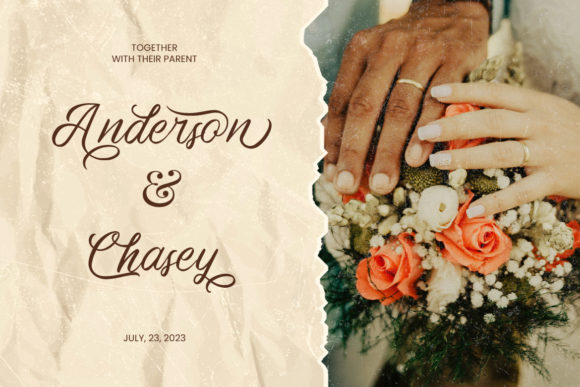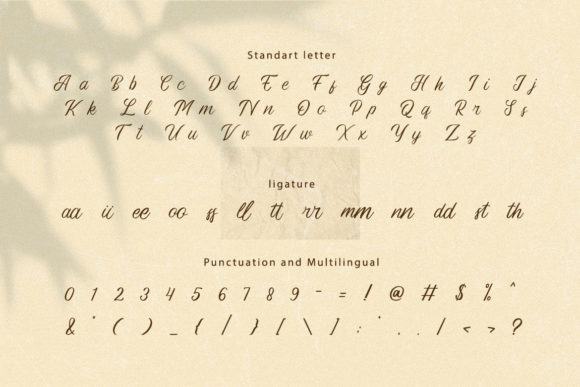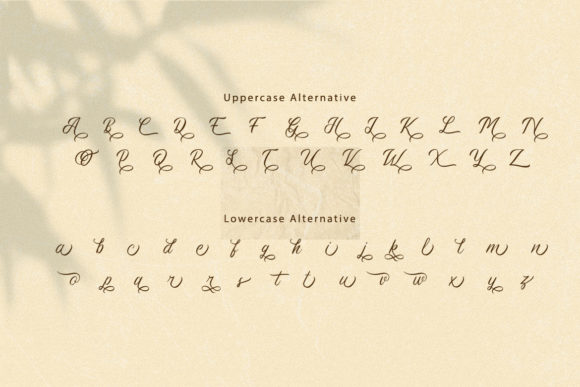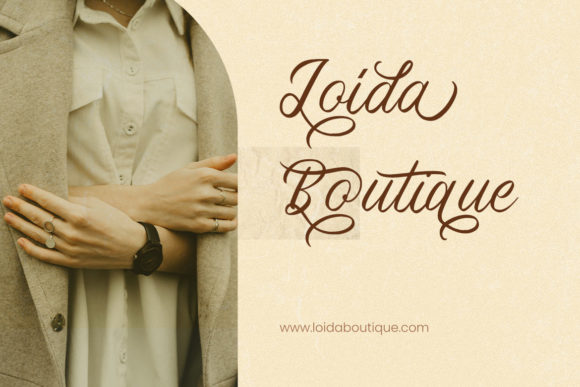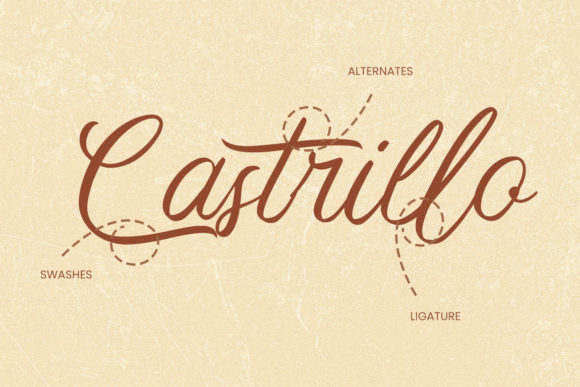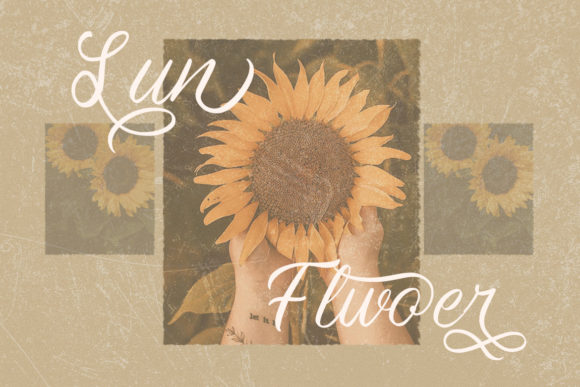
Introduction to Aromatise Font
Have you ever stared at a blank page, searching for the perfect font to bring your creative project to life? For many designers, this moment is all too familiar. But what if you could infuse your design with the essence of luxury and elegance, without breaking the bank? Enter the Aromatise Font, a classic and delicate script font that’s sure to transport your design to a bygone era.
Designed with traditional calligraphy and vintage flair, the Aromatise Font is a high-quality design resource that’s perfect for adding a touch of sophistication to any project. With its transparent background and free download option, this font is an absolute gem for designers on a budget. Whether you’re working on a branding project, a wedding invitation, or a simple social media graphic, the Aromatise Font is sure to elevate your design to new heights.
Honest Review: Aromatise Font
I recently stumbled upon the Aromatise Font, and I must say it’s a unique addition to any design resource. The font’s quirky and playful nature makes it perfect for creative projects that require a bit of whimsy.
- ⚠️ Limited character set, which may not be ideal for lengthy texts
- ⚠️ Some users may find the font’s playful nature too distracting for certain design projects
Overall, I think the Aromatise Font is a great addition to any design library. While it may not be suitable for every project, it’s definitely worth having on hand for those creative moments when you need something unique. I’d recommend giving it a try and seeing how it fits into your design workflow.
Getting the Most Out of Aromatise Font
The Aromatise Font is a versatile design resource that can be used in a variety of creative projects, including logos, brochures, and social media graphics. It’s also a great choice for presentations and reports that require a professional, high-quality font.